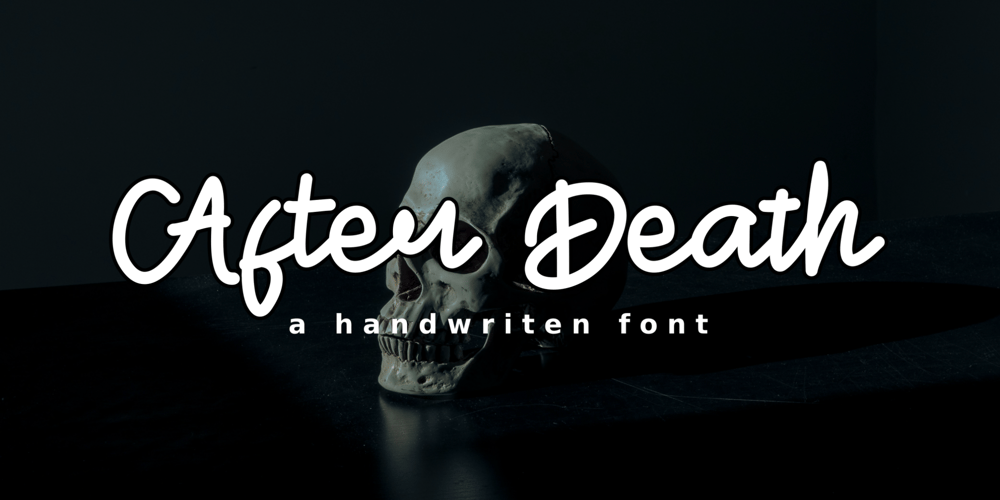
After Death Font Family was designed by Intuisi Creative and published by Fauzistudio. After Death contains 1 styles and family package options. After Death is a script typeface. It is inspired by brush lettering and has a soft and welcoming look. After Death can be used for branding, packaging, and anywhere else you need a script font that is easy to read and smooth.